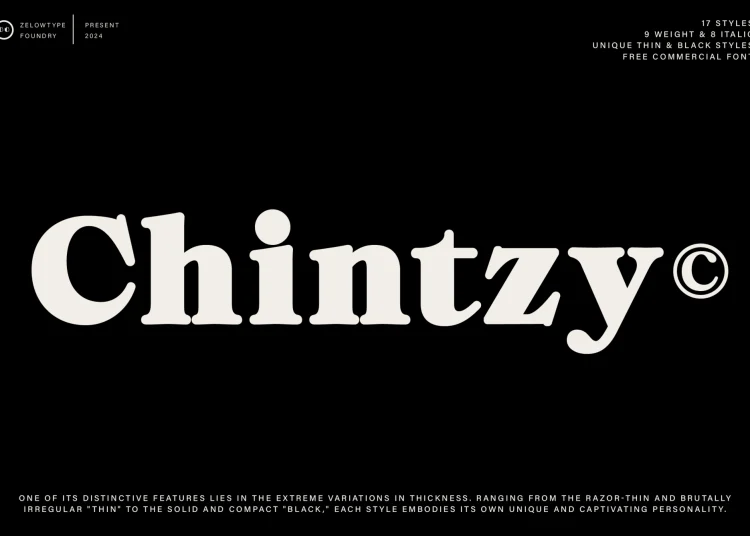
ZT Chintzy Font
ZT Chintzy is a nod to the soft, expressive, and rounded serifs that gained popularity in the 60s and 70s. This vintage-style serif typeface revives the warmth and nostalgia of that era with its charmingly soft serifs and versatile characters. Designed to evoke a sense of classic elegance, ZT Chintzy features powerful yet subdued attributes, offering a perfect blend of nostalgia and modern utility.
This font family includes 17 designs across 8 weight options, ranging from razor-thin “Thin” to thick and slender “Black,” each with its own distinct character and aesthetic. ZT Chintzy is crafted with extreme variations in thickness, making it adaptable to a wide range of design needs. Its special features include standard ligatures, stylistic variations, and alternative styles, adding richness and depth to your projects.
With over 487 characters, ZT Chintzy provides extensive options for typographic creativity. Whether you’re working on editorial designs, branding, or vintage-themed projects, this font offers the flexibility and elegance needed to elevate your work.